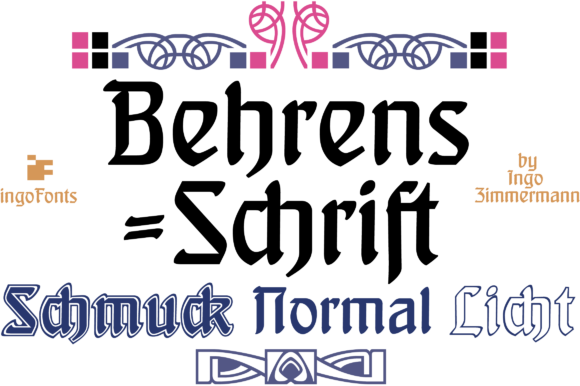
Unleash your creativity with Behrens-Schrift, the captivating blackletter font family that will ignite your designs with a touch of art nouveau brilliance. Inspired by a legendary typeface from 1902, Behrens-Schrift carries the essence of elegance and originality, ready to transform your projects into masterpieces.
Immerse yourself in the intricate details and beautiful flourishes that adorn each character, a testament to the skill and artistry of renowned type designer ingoFonts. Whether you're crafting logos, posters, invitations, or any other design venture, Behrens-Schrift will effortlessly elevate your work to new heights of sophistication.
Go beyond ordinary fonts and embrace the allure of Behrens-Schrift. Its timeless beauty and distinct character will leave an unforgettable impression on your audience, captivating their attention and igniting their imagination. With Behrens-Schrift as your creative companion, you'll discover a world of endless possibilities, where every design tells a story and leaves a lasting impact.
As you explore the depths of Behrens-Schrift, you'll uncover a myriad of ornaments that will add an extra layer of charm and personality to your projects. These exquisite embellishments are like tiny works of art, waiting to be incorporated into your designs and bring them to life.
Don't settle for ordinary fonts that blend into the background. Choose Behrens-Schrift and watch as your designs take center stage, commanding attention and leaving a lasting impression. Its captivating presence will transform your creations into timeless pieces that stand the test of time.
With Behrens-Schrift, you'll unlock a new realm of creative expression, where your imagination knows no bounds. Its versatility extends across a wide range of design domains, from branding and marketing materials to invitations, posters, and social media graphics. Unleash your creativity and let Behrens-Schrift guide you toward design greatness.